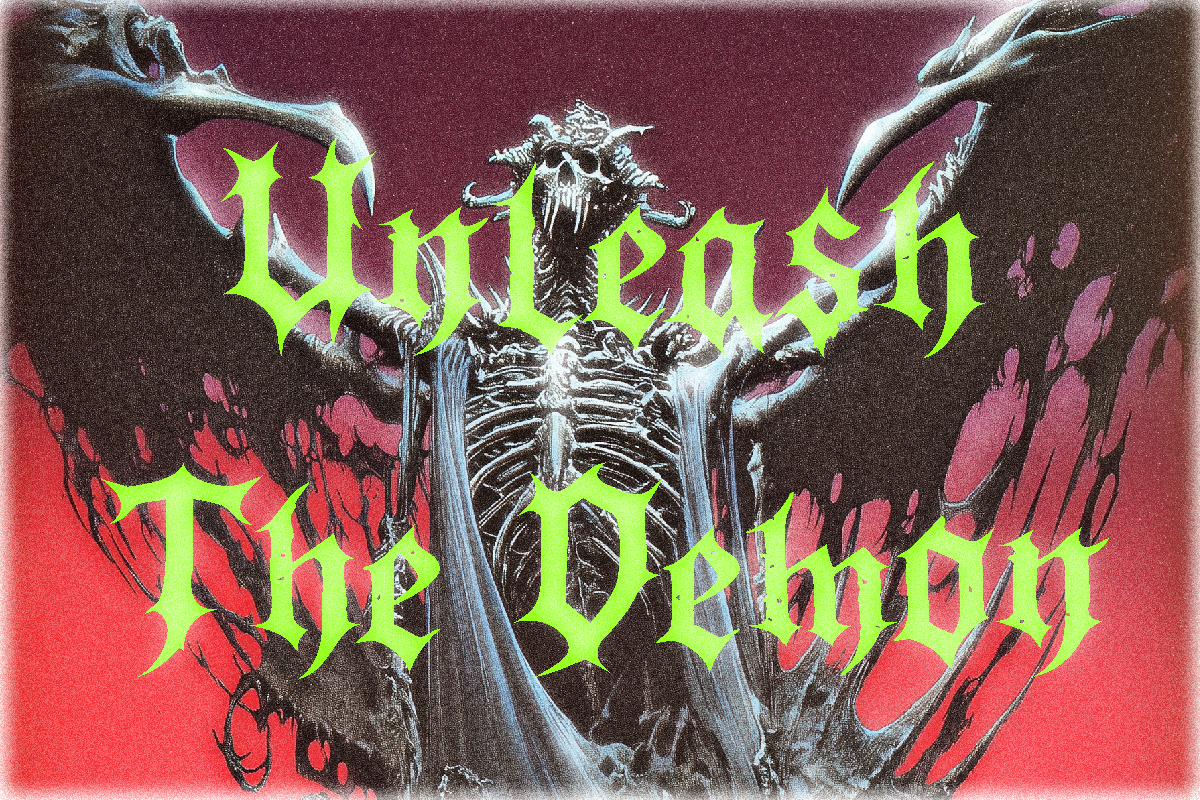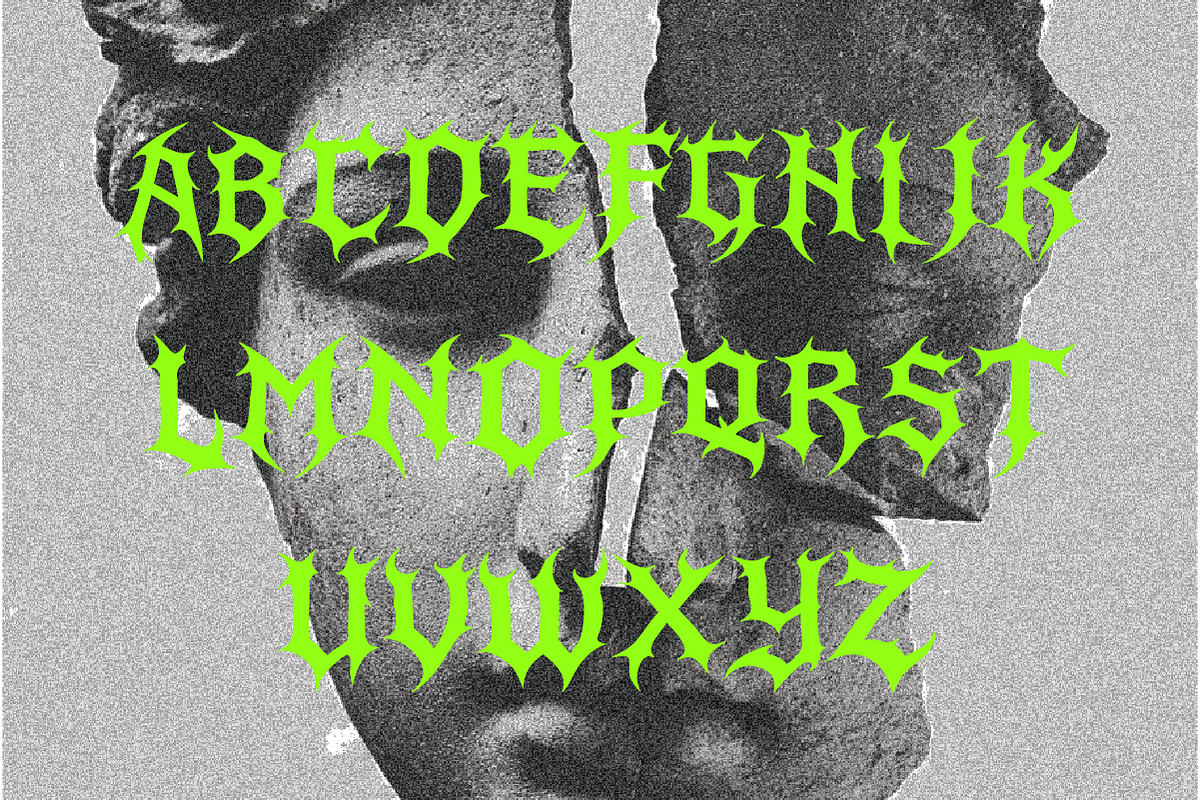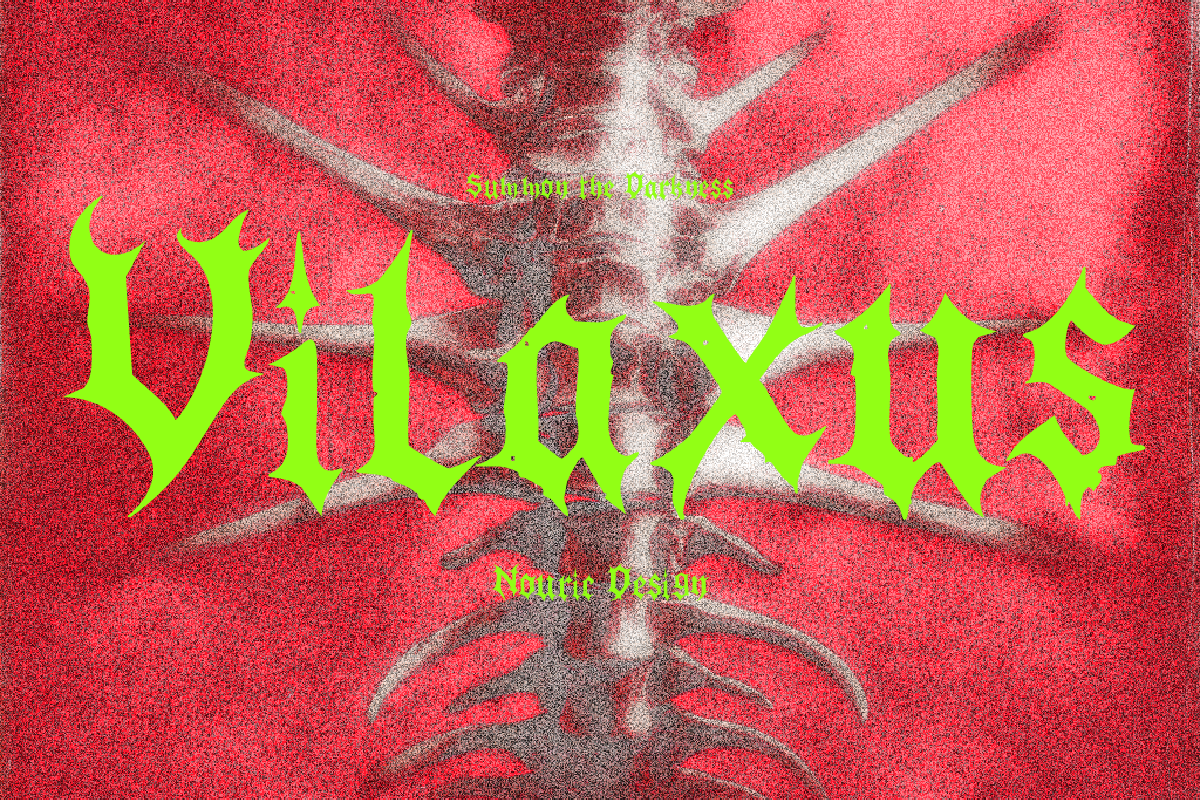
Vilaxus – Black Metal Font
🔥 Vilaxus – Black Metal Font of the Underworld
Unleash darkness with Vilaxus, a brutal and demonic black metal font forged for creators who dare to go beyond the ordinary. With razor-sharp edges, chaotic strokes, and occult-inspired energy, Vilaxus is the perfect weapon for designers in search of raw, extreme, and unforgettable typography.
Crafted for metal bands, horror posters, tattoo designs, underground merch, album covers, and more — this display typeface doesn't whisper... it screams.
⚔️ Best For
Black Metal / Deathcore Logos
Dark Fantasy or Horror Titles
Occult Book Covers
Heavy Music Festival Posters
Streetwear & Grunge Merch